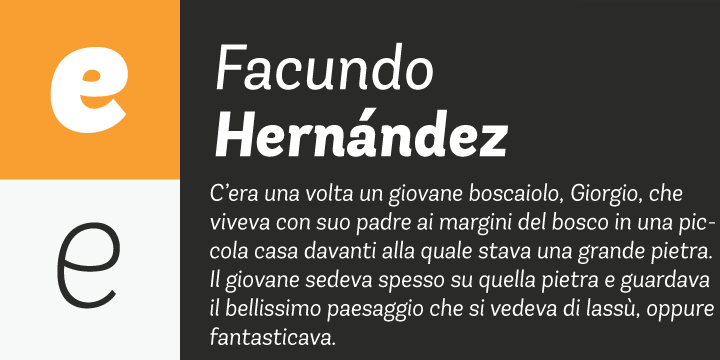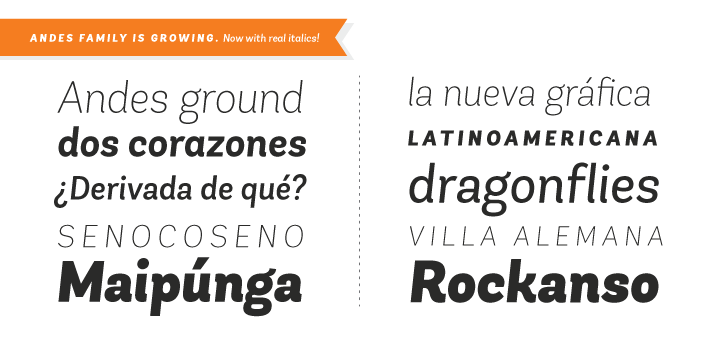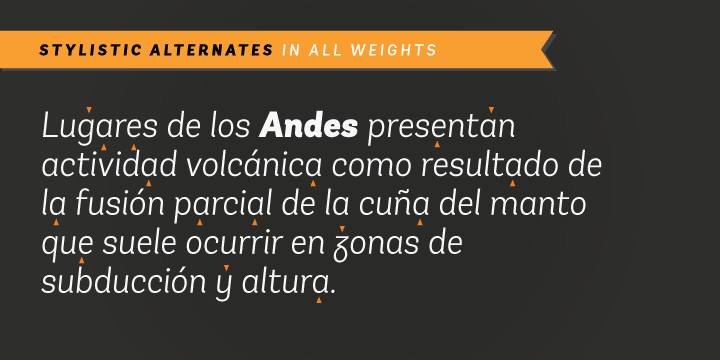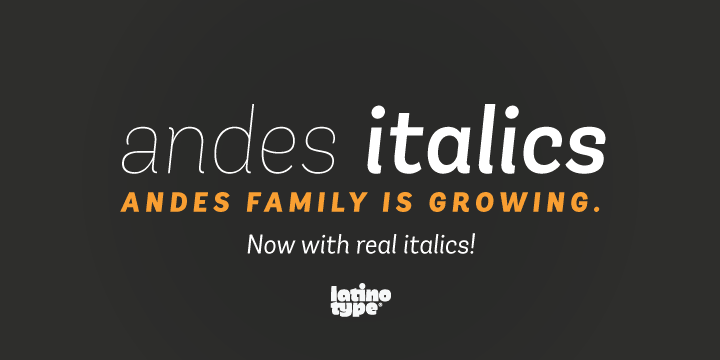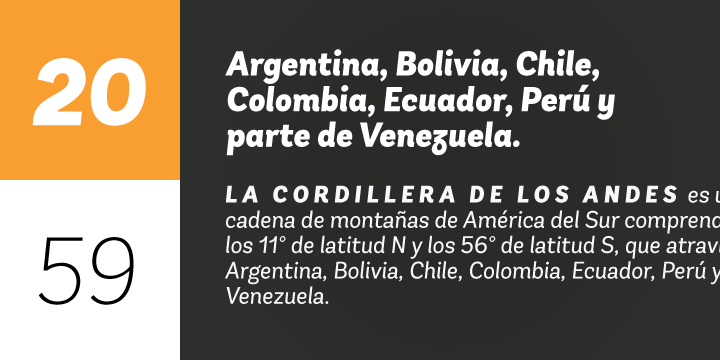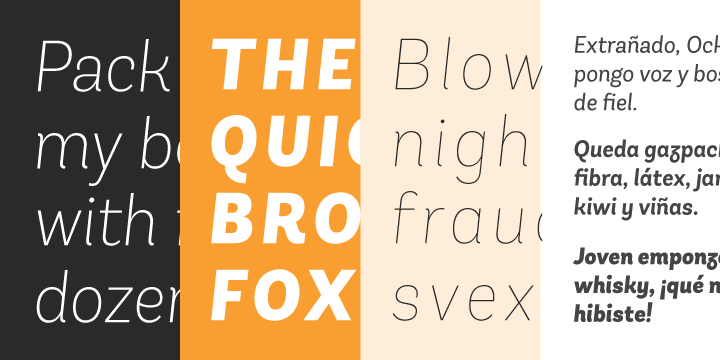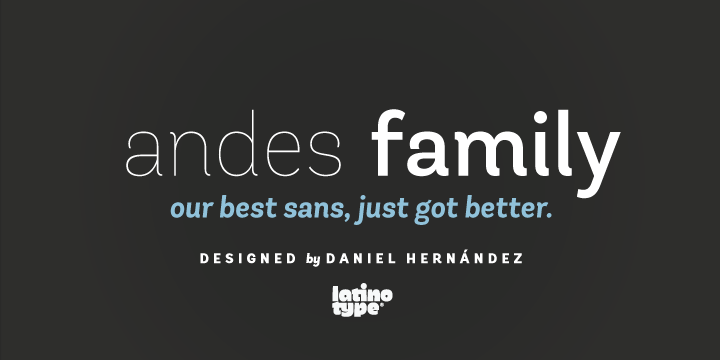
Andes Italic is a sans serif font family. This typeface has ten styles and was published by Latinotype.
Andes, designed by Daniel Hernández, is a display typeface that has neo-humanist characteristics. Its different terminals, among other elements, give it a look of mixed typography.
Andes is a typeface with 10 Upright weights & 10 Italics, ranging from Ultra Light to Black, each of the same x-height. This typeface contains additional italic glyphs (a, y, z, g) that help to emphasise text or words. Andes is based on the design of Merced and both of them share several features.
This type is well-suited for use in retail, magazines, logotypes, books, etc.